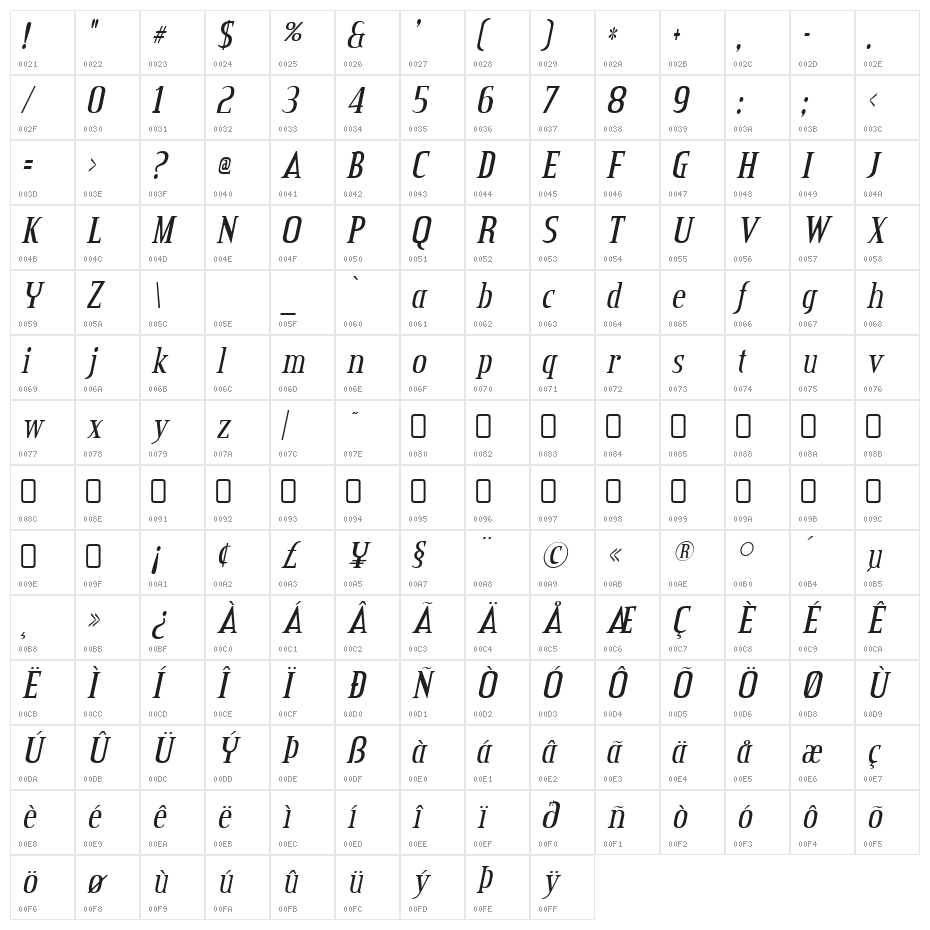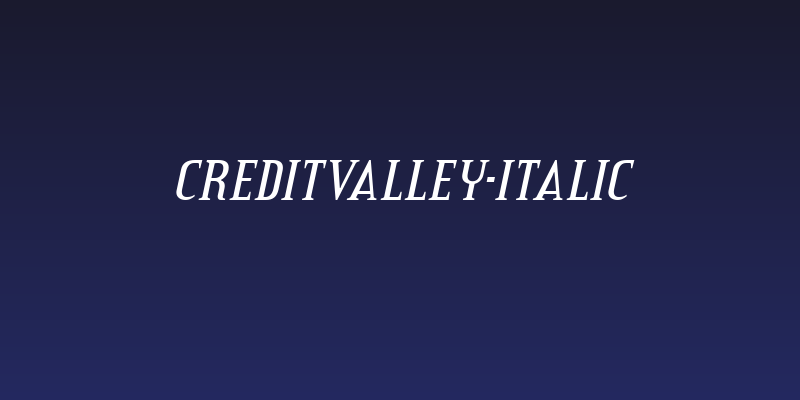
CreditValley-Italic Font
CreditValley-Italic Description
This font exhibits a classic italic style with a slight slant, giving it a sense of motion and elegance. The characters are well-defined with moderate contrast between thick and thin strokes, enhancing readability while maintaining a sophisticated appearance. The uppercase letters are tall and commanding, while the lowercase letters are more rounded and approachable. The numerals are consistent in height with the uppercase letters, ensuring uniformity across different text elements. Special characters are distinct and well-integrated, making this font versatile for various applications.
| Proposed Projects | Ideal for formal invitations, elegant branding, book covers, and editorial design. |